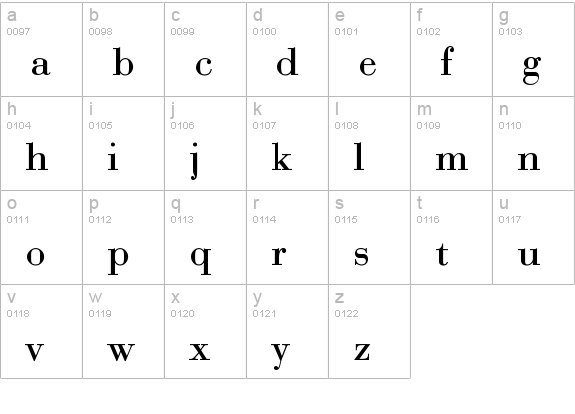
Bodoni-Regular Font Details
Bodoni-Regular is the standard, neutral variant in the Bodoni typeface family \xE2\x80\x94 well suited to general body text, paragraphs, and standard typographic work.